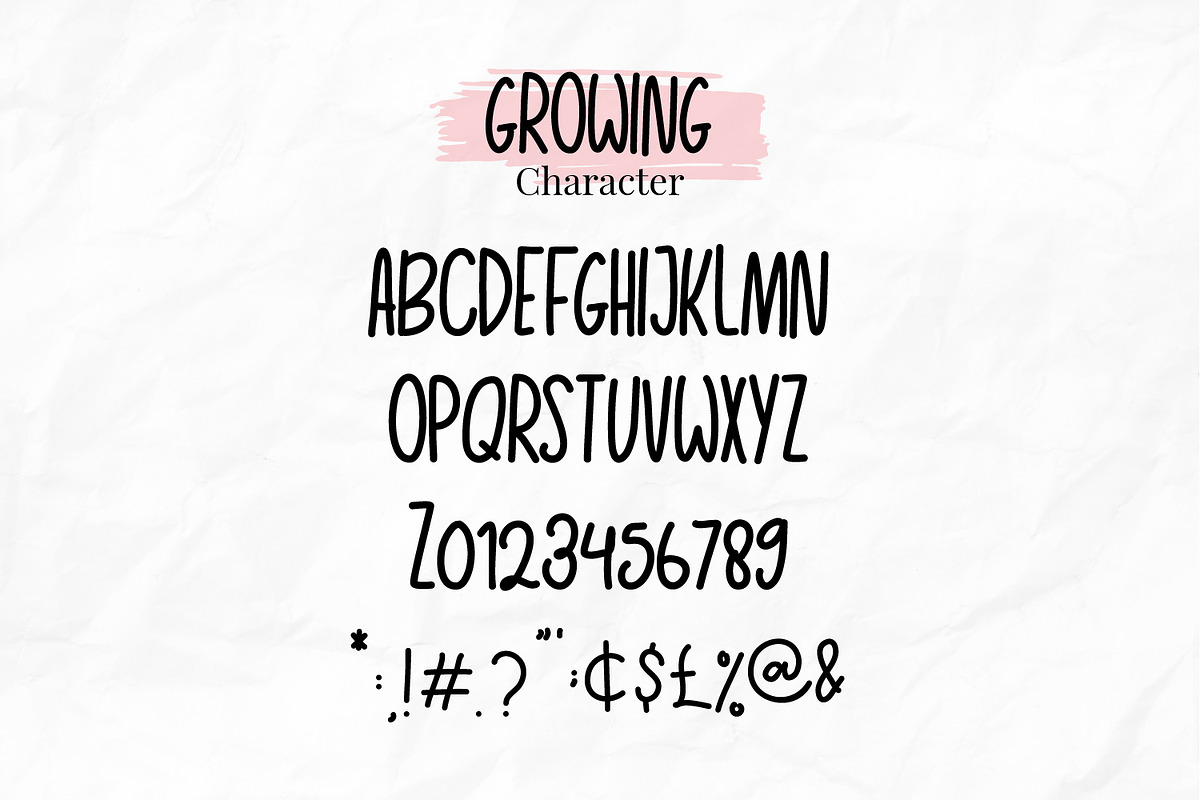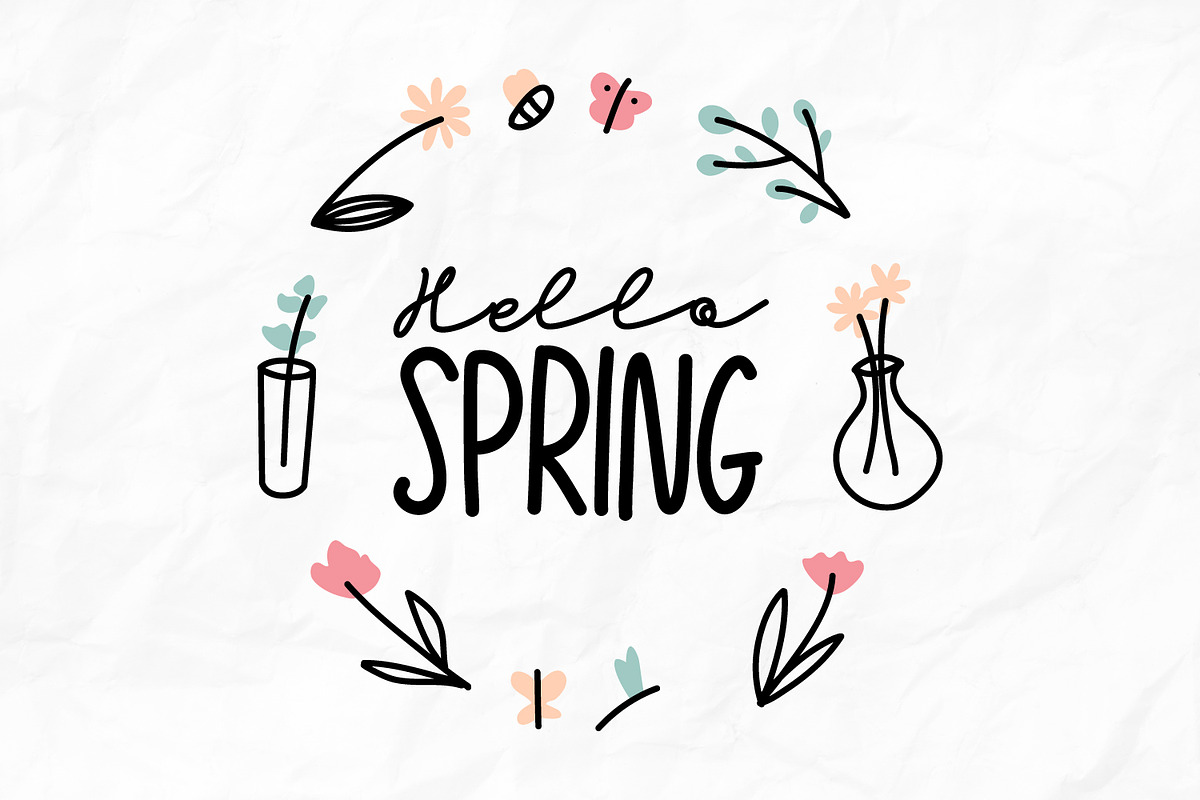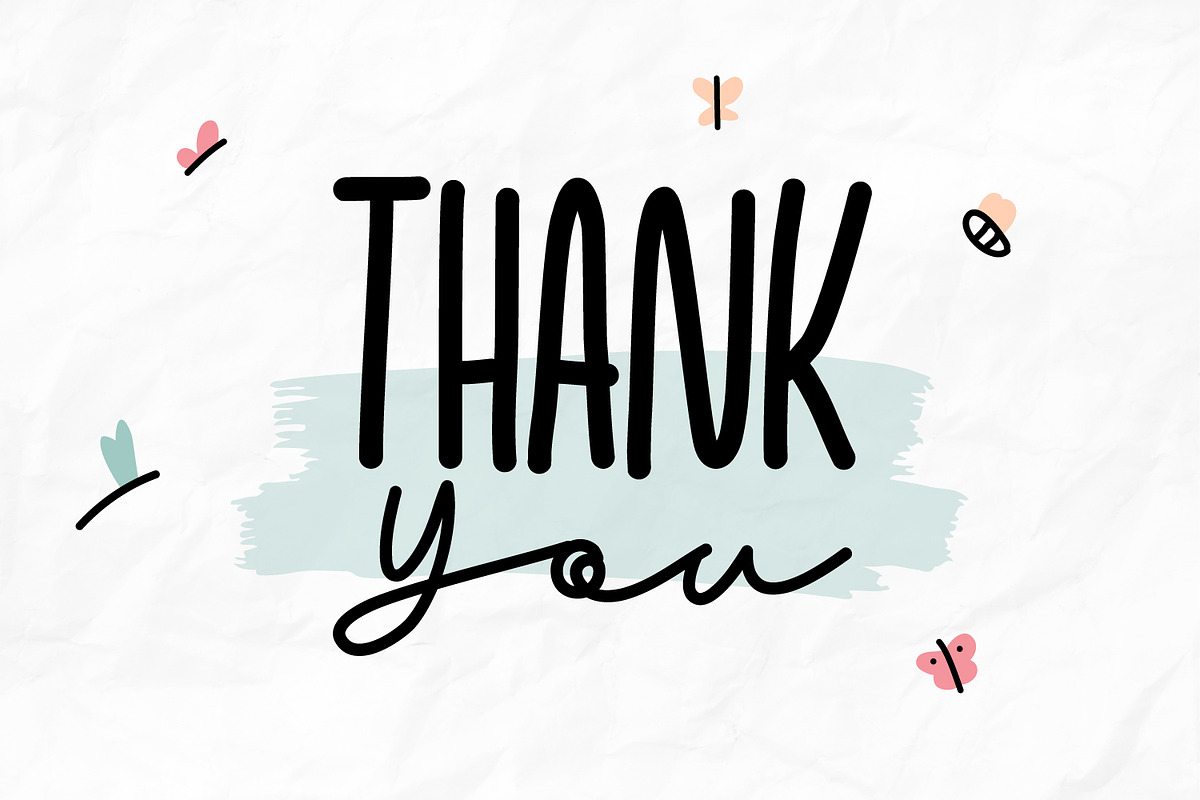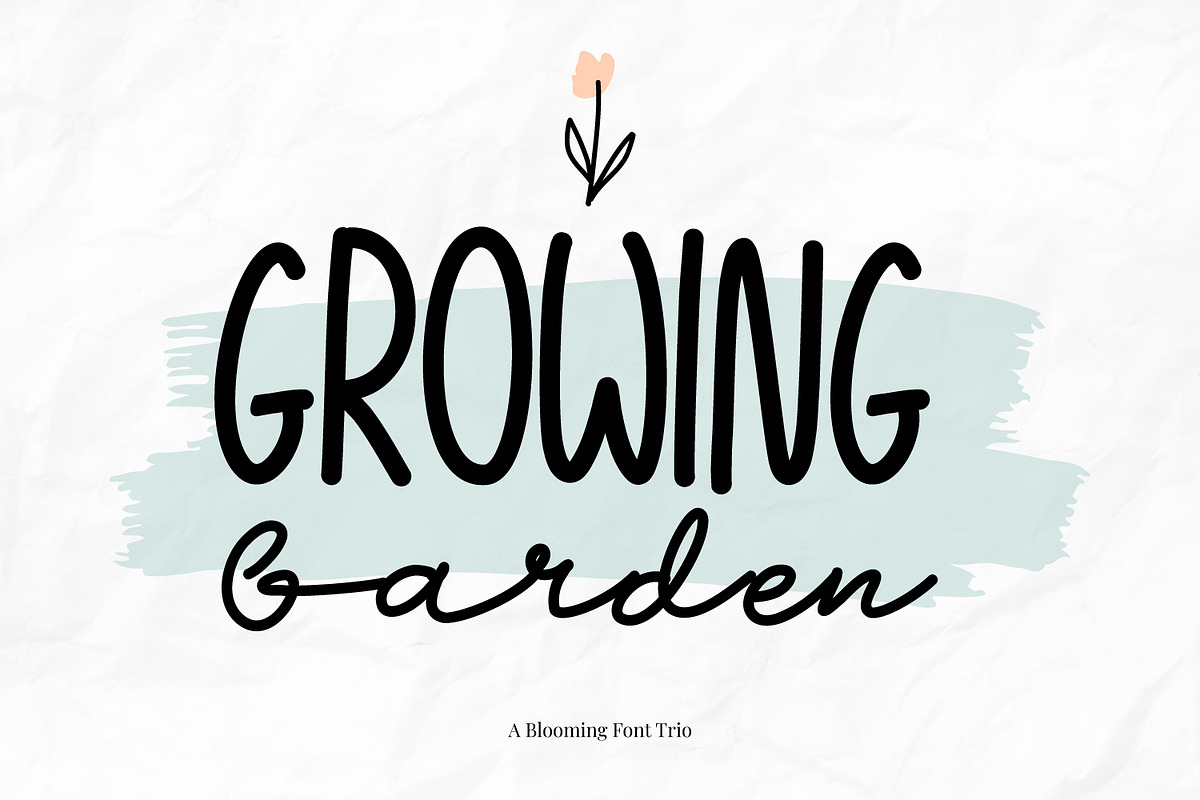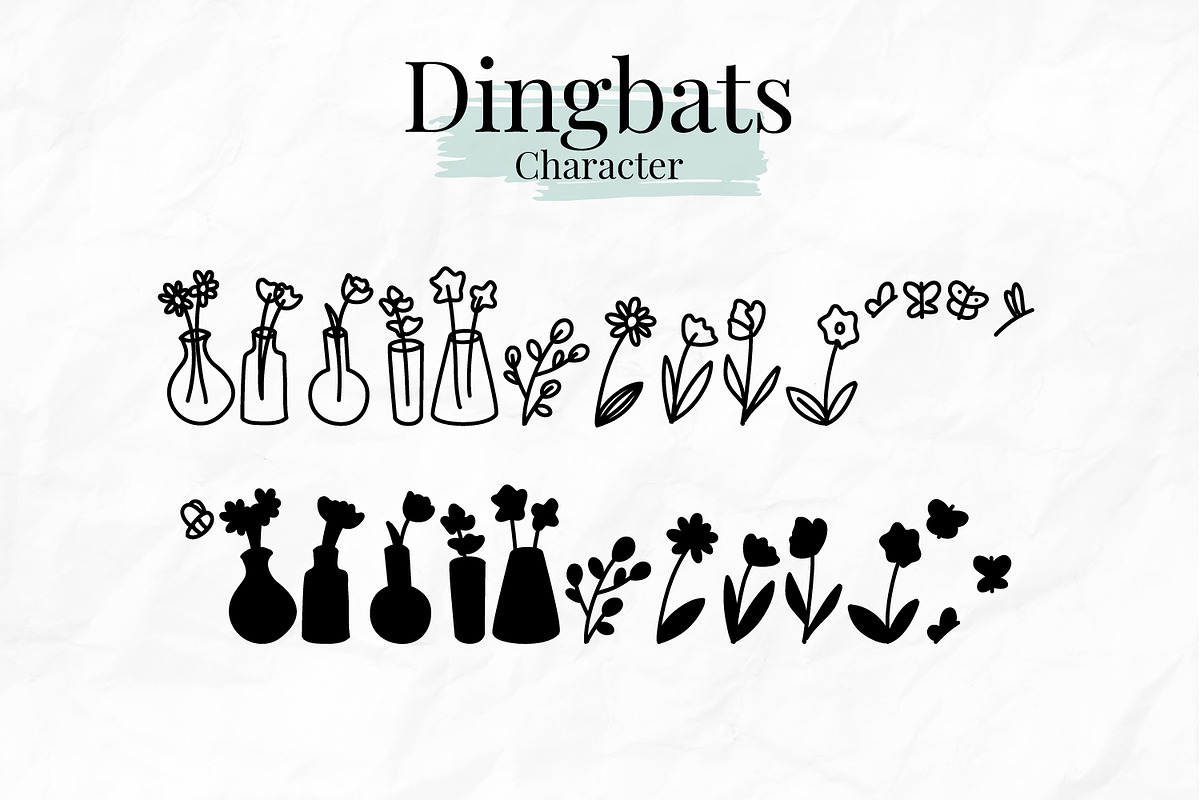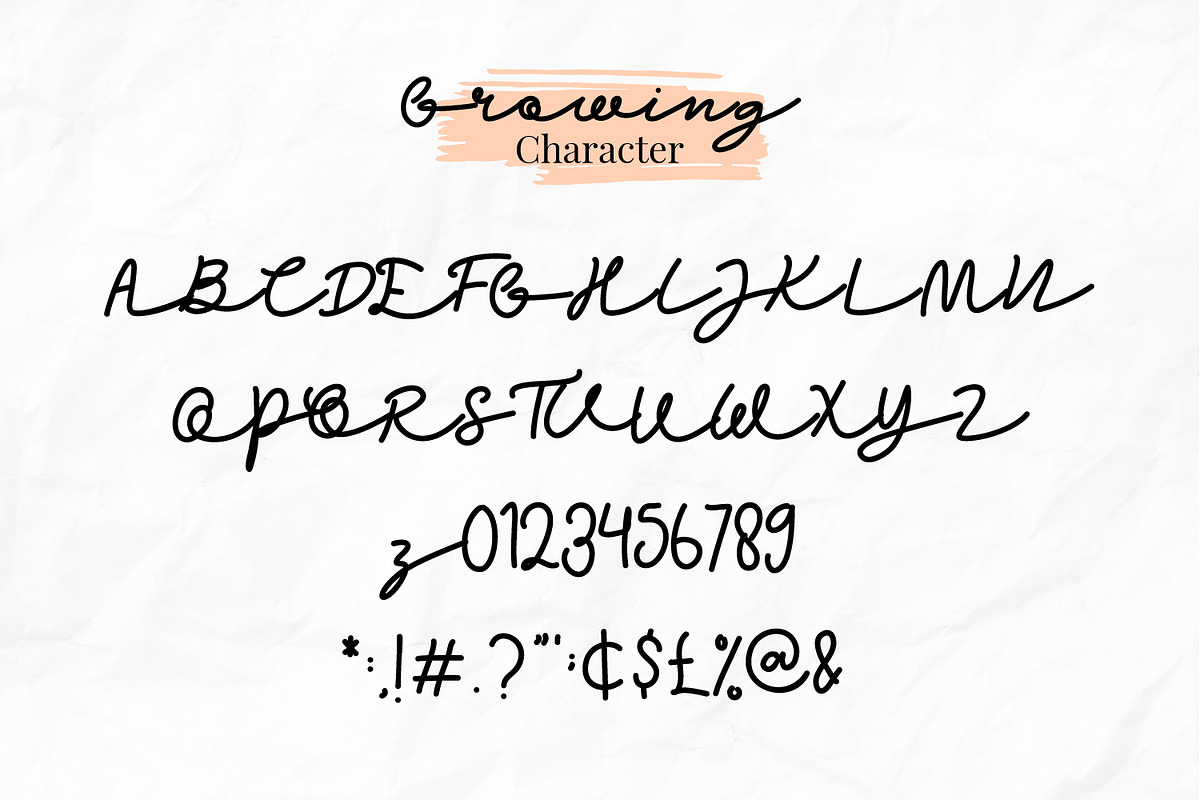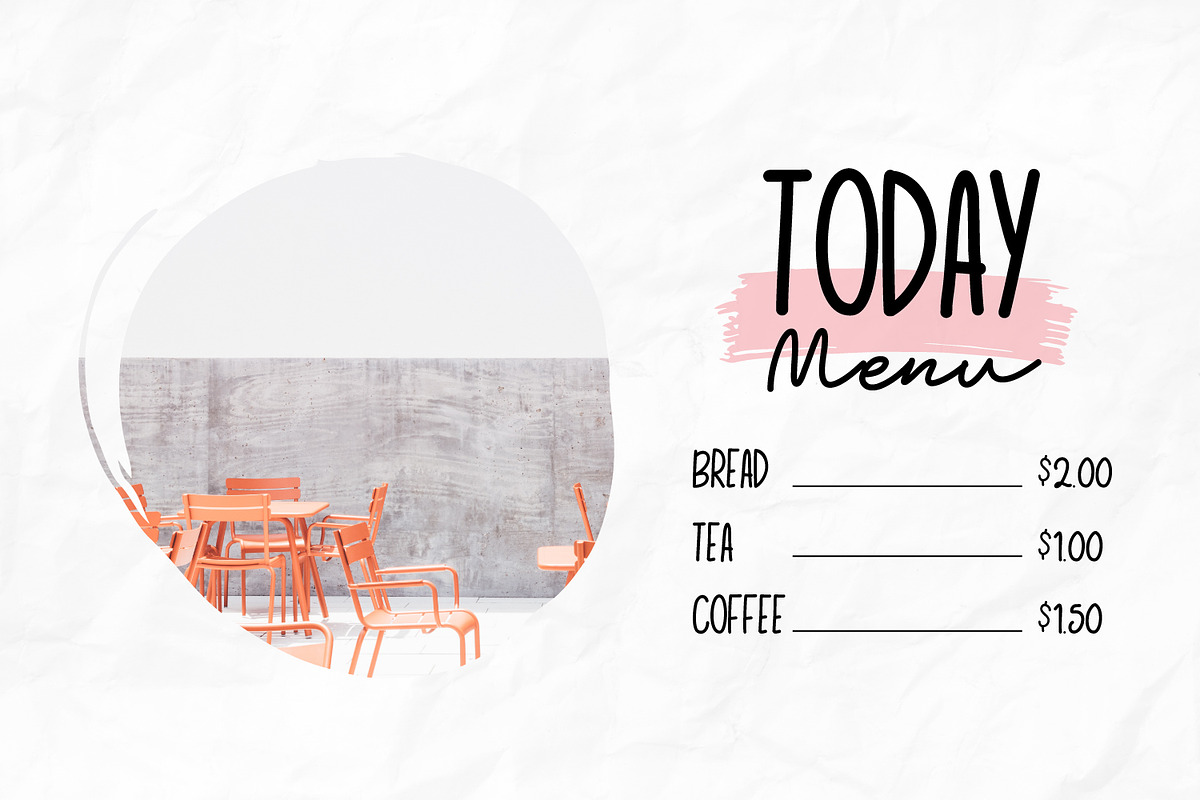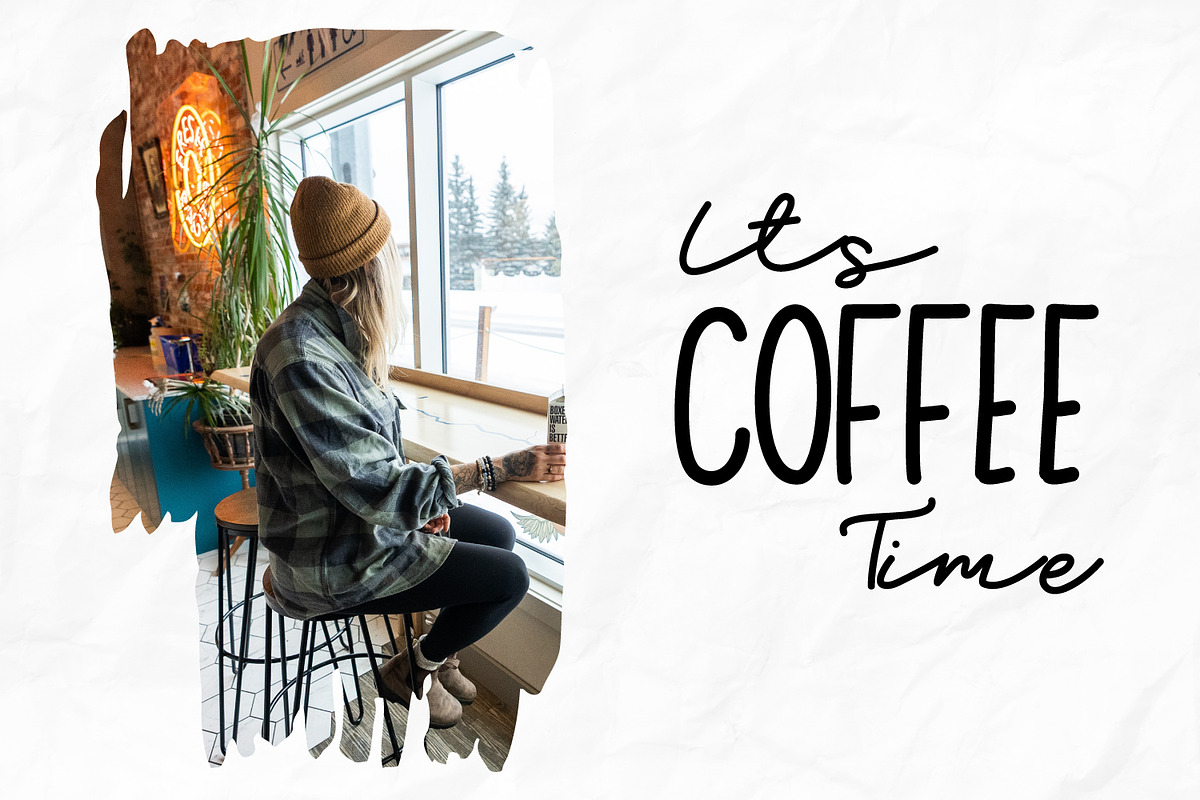
Growing Garden Blooming Font Trio
Growing Garden is an elegant and natural trio handwritten font. This original look will appeal to a wide range of crafty ideas. It looks stunning on wedding invitations, thank you cards, quotes, greeting cards, logos, business cards and every other design which needs a handwritten touch.